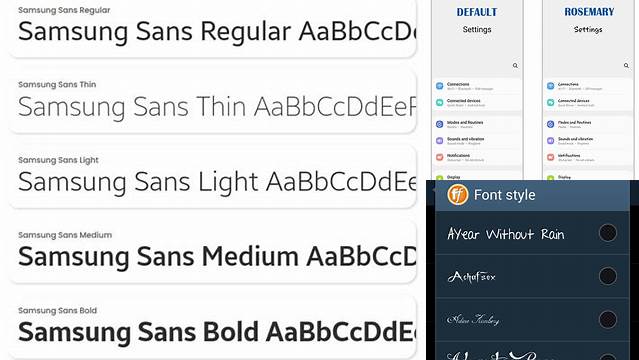
Best Free Font Apps For Samsung: Customize Your Style
Hey guys! Ever feel like your phone's font is just… blah? You're not alone! One of the coolest things about Samsung devices is how customizable they are, and that includes your fonts! If you're looking to spice things up and give your phone a fresh new look, you've come to the right place. We're diving deep into the world of free font apps for Samsung, exploring all the awesome options out there. Let’s get started and make your phone uniquely yours!
1. Why Change Your Font on a Samsung Device?
Okay, so why even bother changing your font? Well, think of it like this: your phone is an extension of you, right? And just like you might change your clothes or hairstyle to express yourself, changing your font can add a personal touch to your device. Plus, a new font can make reading on your screen a lot more enjoyable. Some fonts are just easier on the eyes, especially for those long articles or late-night browsing sessions. So, changing your font isn't just about aesthetics; it's about making your phone work better for you. In this article, we'll discuss everything from the best font apps to how to install and manage them, making your Samsung experience truly your own.
2. Samsung's Built-In Font Options
Before we jump into third-party apps, let's not forget that Samsung actually offers a decent selection of built-in fonts. You might be surprised by what's already available on your device! To check them out, head over to your phone's settings, then tap on "Display," followed by "Font size and style." Here, you'll find a handful of pre-installed fonts that you can choose from. While the selection isn't huge, it's a great starting point, and you might just find a font that you love without needing to download anything extra. Plus, this is the easiest and safest way to change your font, so it's always worth a look. Understanding these built-in options is crucial before venturing into other apps, ensuring you know all the possibilities right at your fingertips.
3. Top Free Font Apps for Samsung
Alright, let's get to the good stuff! There are tons of free font apps out there for Samsung devices, but some definitely stand out from the crowd. We're talking about apps that offer a wide variety of fonts, are easy to use, and won't bog down your phone with annoying ads or sketchy permissions. Think of it as finding that perfect pair of shoes – you want something stylish, comfortable, and reliable. We'll be highlighting the top contenders in this category, including popular choices and some hidden gems you might not have heard of yet. Get ready to discover your new favorite font!
4. Font Apps with the Widest Selection
When it comes to font apps, variety is the spice of life! You want an app that offers a massive library of fonts, so you can really explore different styles and find the perfect match for your personality. Some apps boast thousands of fonts, ranging from elegant and classic to quirky and modern. We're talking about fonts for every mood and occasion. This section will spotlight the apps that give you the most bang for your buck in terms of font selection, ensuring you'll never run out of options. Let’s dive into the world of font abundance!
5. Easiest Font Apps to Use
Nobody wants to wrestle with a complicated app just to change their font. That's why ease of use is a huge factor when choosing a font app. We're looking for apps with intuitive interfaces, clear instructions, and a smooth installation process. You should be able to browse, preview, and apply fonts in just a few taps, without any headaches. This section will focus on the apps that make font customization a breeze, even if you're not a tech whiz. We believe changing your font should be fun and effortless, and these apps deliver just that.
6. Font Apps with the Best Reviews
What are other users saying? It's always a good idea to check out reviews before downloading an app, and font apps are no exception. We'll be highlighting the apps that have earned rave reviews from Samsung users, praising their font selection, ease of use, and overall performance. Think of it as getting recommendations from friends – you trust their opinions, and you're more likely to have a positive experience. This section is all about tapping into the wisdom of the crowd to find the best-rated font apps out there.
7. Font Apps for Different Styles: Serif, Sans-Serif, Script, and More
Fonts come in all shapes and sizes, and understanding the different categories can help you find the perfect style for your phone. We'll be breaking down the major font categories – serif, sans-serif, script, and decorative – and recommending apps that specialize in each. Whether you're after the classic elegance of a serif font or the modern simplicity of sans-serif, we've got you covered. Let’s explore the diverse world of font styles and find the perfect match for your taste.
8. Serif Fonts: Apps for a Classic Look
Serif fonts, with their little decorative strokes, are all about classic elegance and readability. Think Times New Roman or Georgia – these fonts have a timeless quality that's perfect for long blocks of text. If you're looking to give your Samsung device a sophisticated and traditional feel, a serif font might be just the ticket. We'll be recommending apps that offer a wide selection of high-quality serif fonts, so you can find the perfect fit for your style. Dive into the world of serif fonts and discover their enduring appeal.
9. Sans-Serif Fonts: Apps for a Modern Feel
Sans-serif fonts, on the other hand, are all about modern simplicity and clean lines. Think Arial or Helvetica – these fonts are sleek, minimalist, and perfect for digital screens. If you want your Samsung device to have a contemporary and uncluttered look, a sans-serif font is the way to go. We'll be highlighting apps that offer a diverse range of sans-serif fonts, from bold and impactful to light and airy. Let's explore the modern world of sans-serif fonts!
10. Script Fonts: Apps for a Personal Touch
Script fonts are all about adding a personal touch and a bit of flair to your phone. These fonts mimic handwriting, and they can range from elegant and formal to playful and casual. If you want your Samsung device to feel more unique and expressive, a script font can be a great choice. We'll be recommending apps that offer a variety of script fonts, so you can find the perfect style to match your personality. Get ready to add some personal flair with script fonts!
11. Decorative Fonts: Apps for Fun and Creativity
Decorative fonts are where things get really fun and creative! These fonts are all about making a statement, and they come in a wide range of styles, from quirky and playful to bold and dramatic. If you want your Samsung device to stand out from the crowd, a decorative font can be a great way to do it. We'll be highlighting apps that offer a wide selection of decorative fonts, so you can really let your personality shine. Let's dive into the world of decorative fonts and unleash your creativity!
12. How to Install Fonts on Your Samsung Device
Okay, you've found the perfect font app and picked out your new favorite font – now what? Don't worry, installing fonts on a Samsung device is actually pretty straightforward. We'll walk you through the process step-by-step, ensuring a smooth and hassle-free installation. Whether you're using the built-in font settings or a third-party app, we'll cover everything you need to know. Get ready to install your new fonts and enjoy a fresh look!
13. Using the Galaxy Themes App for Fonts
Did you know that Samsung has its own Galaxy Themes app? It's a treasure trove of customization options, including fonts! The Galaxy Themes app offers a curated selection of fonts, and many of them are free. This is a great option if you want to find fonts that are specifically designed for Samsung devices, and it's a safe and reliable way to change your font. We'll explore the Galaxy Themes app and show you how to find and install fonts from this handy resource. Let's dive into Galaxy Themes and discover its font offerings!
14. Font Apps Compatible with Samsung One UI
Samsung's One UI is the software that powers many of its devices, and it has its own unique look and feel. That's why it's important to choose font apps that are compatible with One UI, ensuring a seamless and consistent experience. We'll be highlighting apps that are specifically designed to work well with One UI, so you can avoid any compatibility issues. Let's find the best font apps for Samsung One UI!
15. Font Apps That Don't Require Root Access
Rooting your Android device can open up a world of customization options, but it can also be risky and void your warranty. The good news is that you don't need to root your Samsung device to change your font! We'll be focusing on apps that work perfectly well without root access, so you can customize your phone safely and easily. Let's explore the world of non-root font apps!
16. Font Apps with Preview Options
Before you commit to a new font, it's essential to see what it will look like on your phone. That's why preview options are so important in a font app. We'll be highlighting apps that let you preview fonts in different sizes and styles, so you can get a clear idea of how they'll look on your screen. This ensures you'll love your new font before you even install it. Let’s find the best font preview features!
17. Managing Installed Fonts on Your Samsung Device
Once you've installed a few fonts, it's important to manage them effectively. You might want to switch between fonts, uninstall fonts you no longer need, or organize your font library. We'll be covering the best ways to manage your installed fonts on your Samsung device, ensuring a smooth and organized experience. Let's get those fonts organized!
18. Font Apps with Regular Updates
A font app that's regularly updated is a good sign that the developers are committed to providing a high-quality experience. Regular updates can bring new fonts, bug fixes, and performance improvements, ensuring that the app stays fresh and reliable. We'll be highlighting apps that have a history of consistent updates, so you can be confident that you're using a well-maintained app. Let’s explore the benefits of regularly updated font apps!
19. Font Apps with Customer Support
If you run into any issues with a font app, it's good to know that customer support is available. We'll be highlighting apps that offer reliable customer support, whether it's through email, FAQs, or online forums. This ensures that you can get help if you need it, and it adds an extra layer of confidence when using the app. Let's find the best customer support in font apps!
20. Security Considerations When Downloading Font Apps
Downloading apps from unknown sources can be risky, so it's important to be aware of security considerations. We'll be discussing the steps you can take to protect your Samsung device when downloading font apps, such as sticking to reputable sources and checking app permissions. Your security is paramount, so let’s stay safe while customizing!
21. Avoiding Malware and Viruses in Font Apps
Malware and viruses can be a real threat when downloading apps, so it's crucial to be vigilant. We'll be providing tips on how to avoid malware and viruses when downloading font apps, such as reading reviews and checking the developer's reputation. Staying safe online is key to enjoying your customized phone.
22. Checking App Permissions Before Installation
Before you install any app, it's always a good idea to check the app permissions. This will give you an idea of what the app has access to on your phone, such as your contacts, photos, or location. If an app is asking for permissions that seem unnecessary, it's best to avoid it. Let's understand the importance of app permissions!
23. Reputable Sources for Downloading Font Apps
Sticking to reputable sources when downloading font apps is one of the best ways to ensure your safety. We'll be recommending trusted app stores and developers, so you can download fonts with confidence. It’s all about downloading safely and smartly.
24. Best Font Apps for Readability
While stylish fonts are great, readability is key for everyday use. We'll be focusing on font apps that offer fonts optimized for readability, reducing eye strain during those long reading sessions. Because let's face it, comfort is just as important as style.
25. Font Apps That Save Battery Life
Believe it or not, some fonts can actually impact your battery life! We'll be highlighting font apps that offer fonts designed to be energy-efficient, helping you squeeze more juice out of your Samsung device. Who knew your font could be a battery-saver?
26. Font Apps for Vision Impairment
Accessibility matters, and there are font apps that cater specifically to users with vision impairment. These apps offer fonts that are easier to read and can be adjusted for optimal visibility. We're making sure everyone can enjoy a customized phone experience.
27. Customizing Font Size and Style
Beyond just the font type, you can also customize the font size and style on your Samsung device. We'll walk you through the options and settings, so you can fine-tune your text to perfection. It’s all about getting that just right look and feel.
28. Using Different Fonts for Different Apps
Imagine having a different font for your email app, your social media, and your reading app! Some font apps allow you to set different fonts for different apps, adding a whole new level of customization. This is next-level personalization, guys!
29. Backing Up and Restoring Your Font Settings
Switching phones or doing a factory reset? Don't lose your perfect font setup! We'll cover how to back up and restore your font settings, ensuring your customization travels with you. No more font-related heartache!
30. The Future of Font Customization on Samsung Devices
What does the future hold for font customization on Samsung devices? We'll be speculating on upcoming features and trends, keeping you in the know about the ever-evolving world of mobile fonts. The future is looking font-tastic!